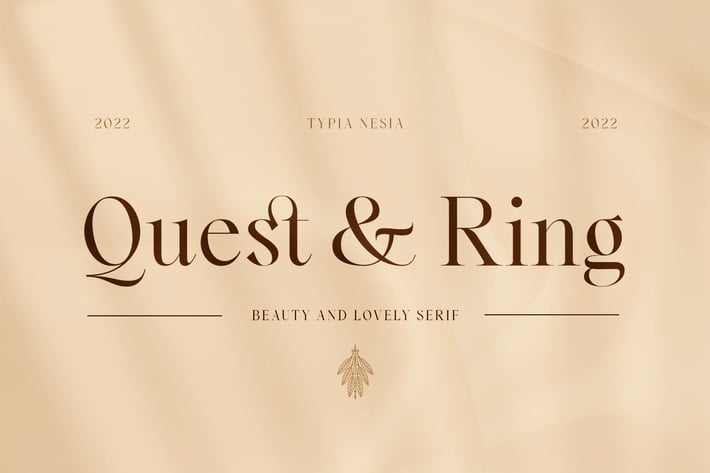
Quest and Ring - Beauty and Lovely Serif Font
Quest and Ring - Beauty and Lovely Serif - Modern Expressive Elegant Luxury Font
Quest and Ring comes with some ligatures, so you can combine it to make a perfect typography design. It is perfect for your up coming projects. Such as luxury logo and branding, classy editorial design, woman magazine, cosmetic brand, fashion promotional, art gallery branding, museum, historical of architectural, boutique branding, stationery design, blog design, modern advertising design, card invitation, art quote, home decor, book/cover title, special events and any more.